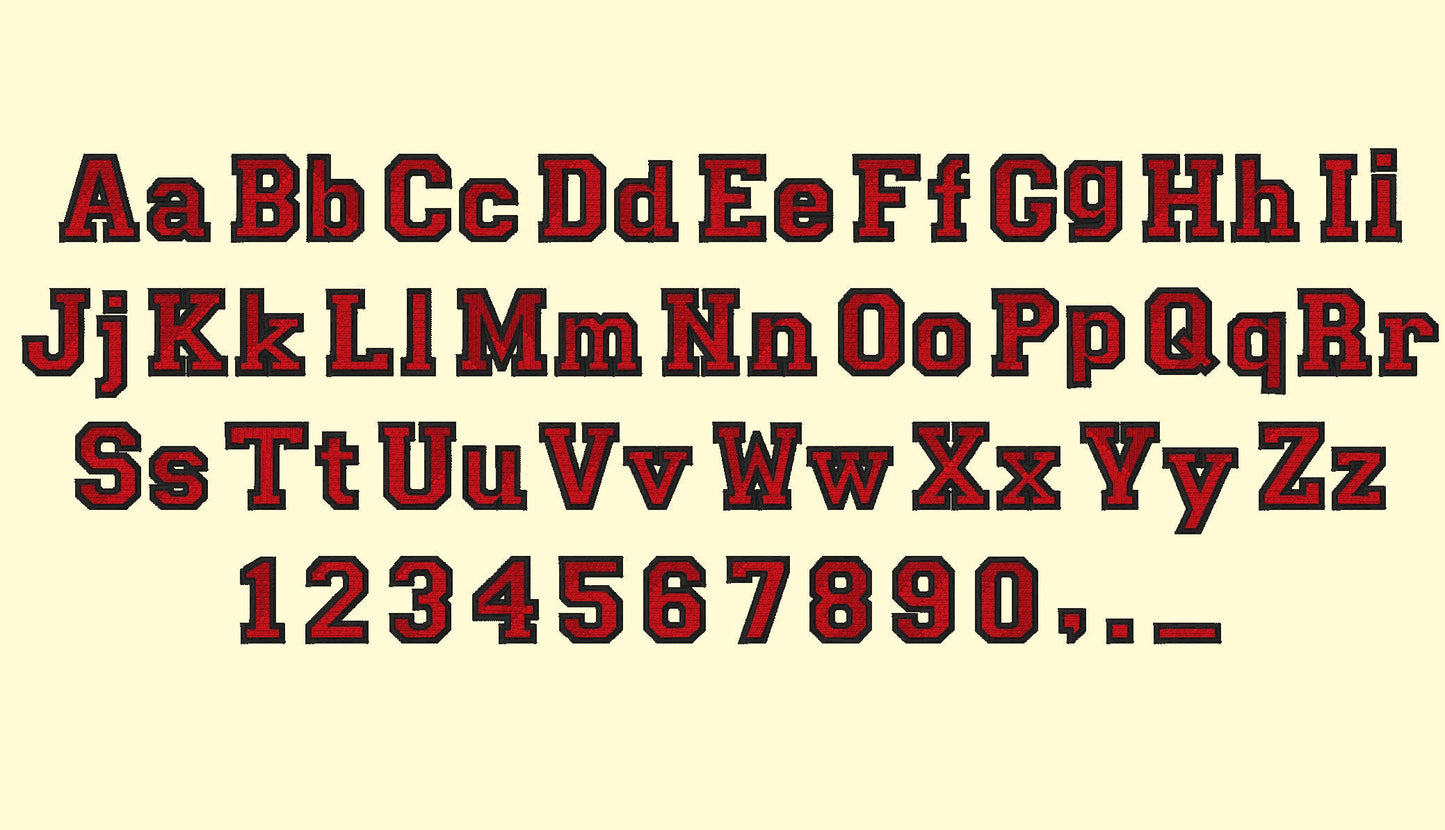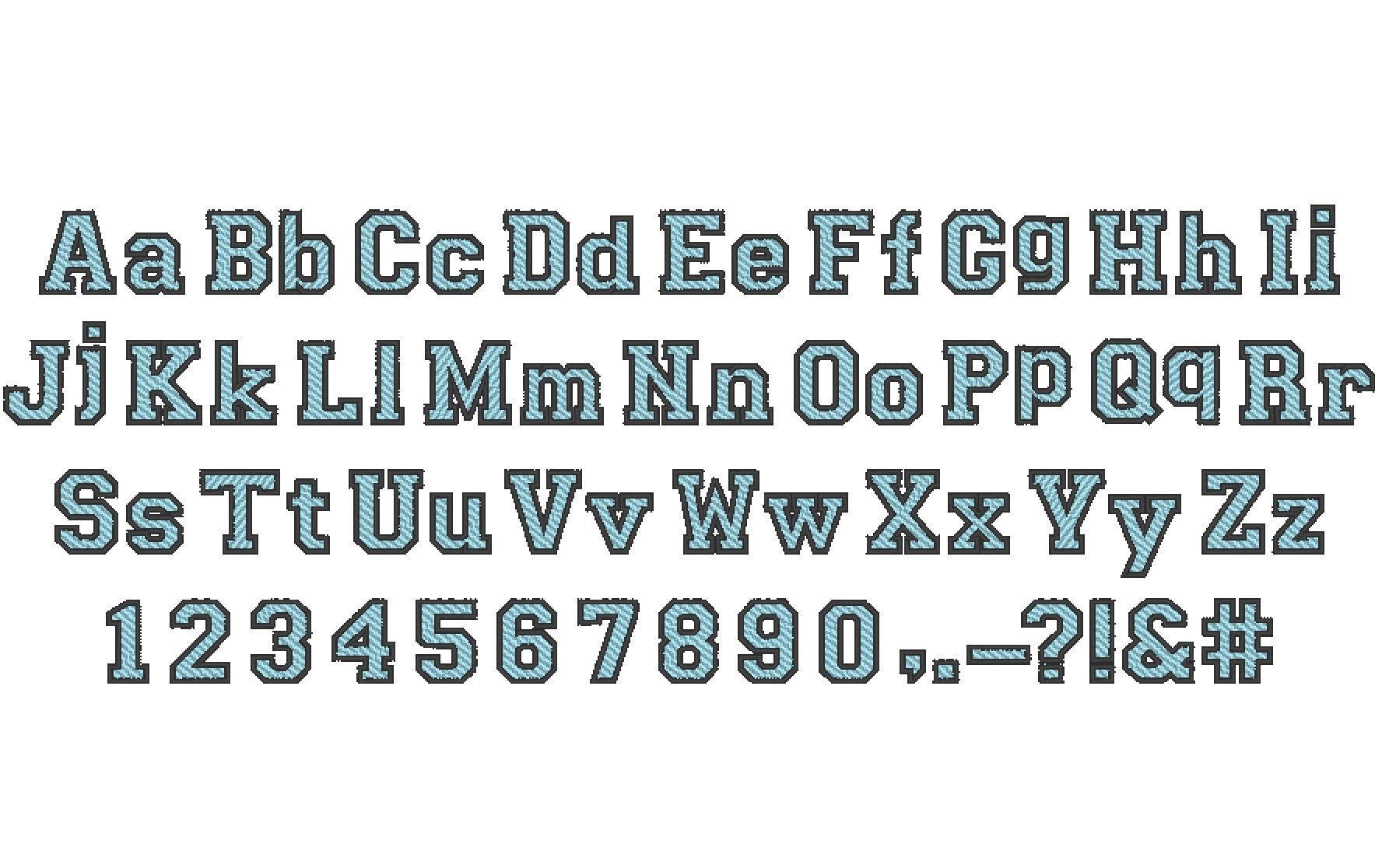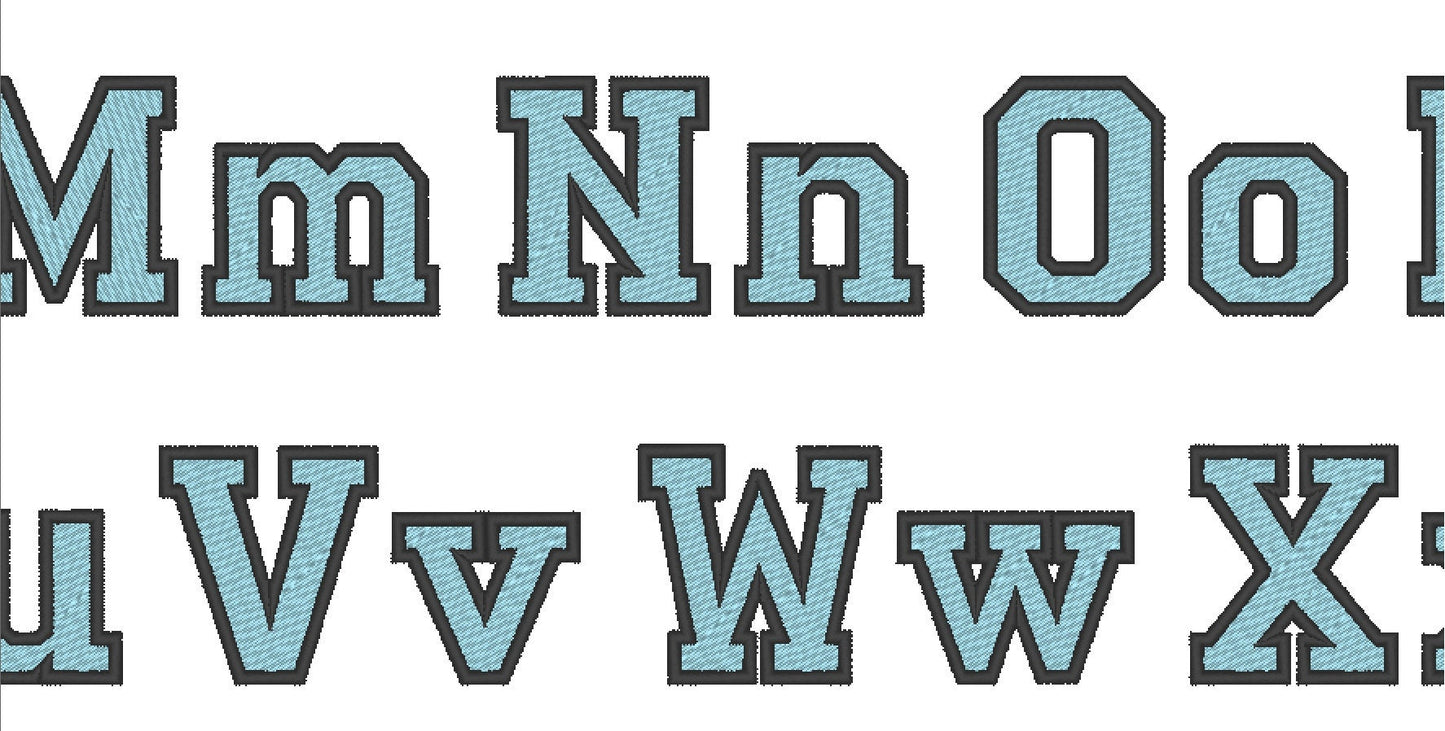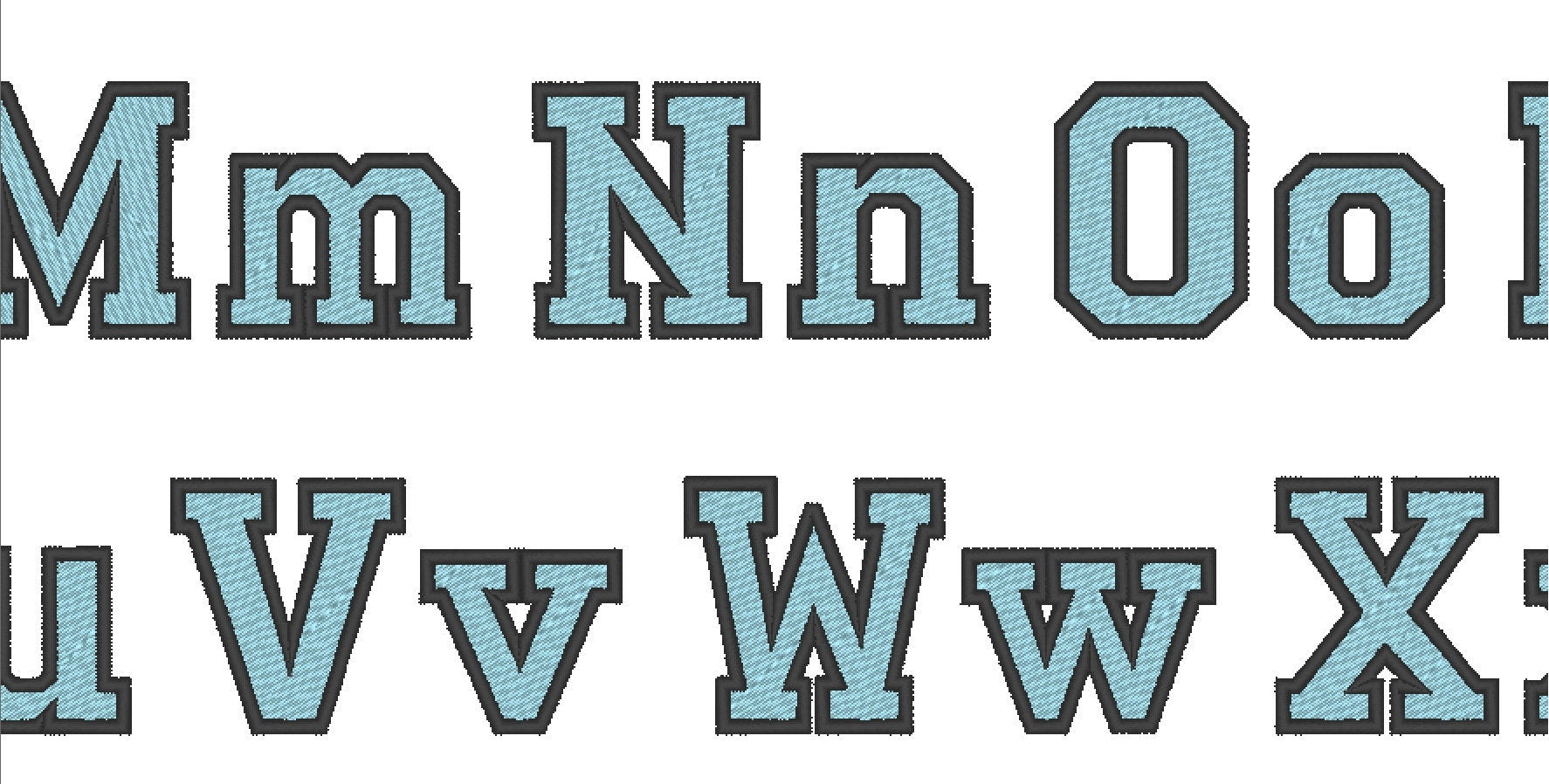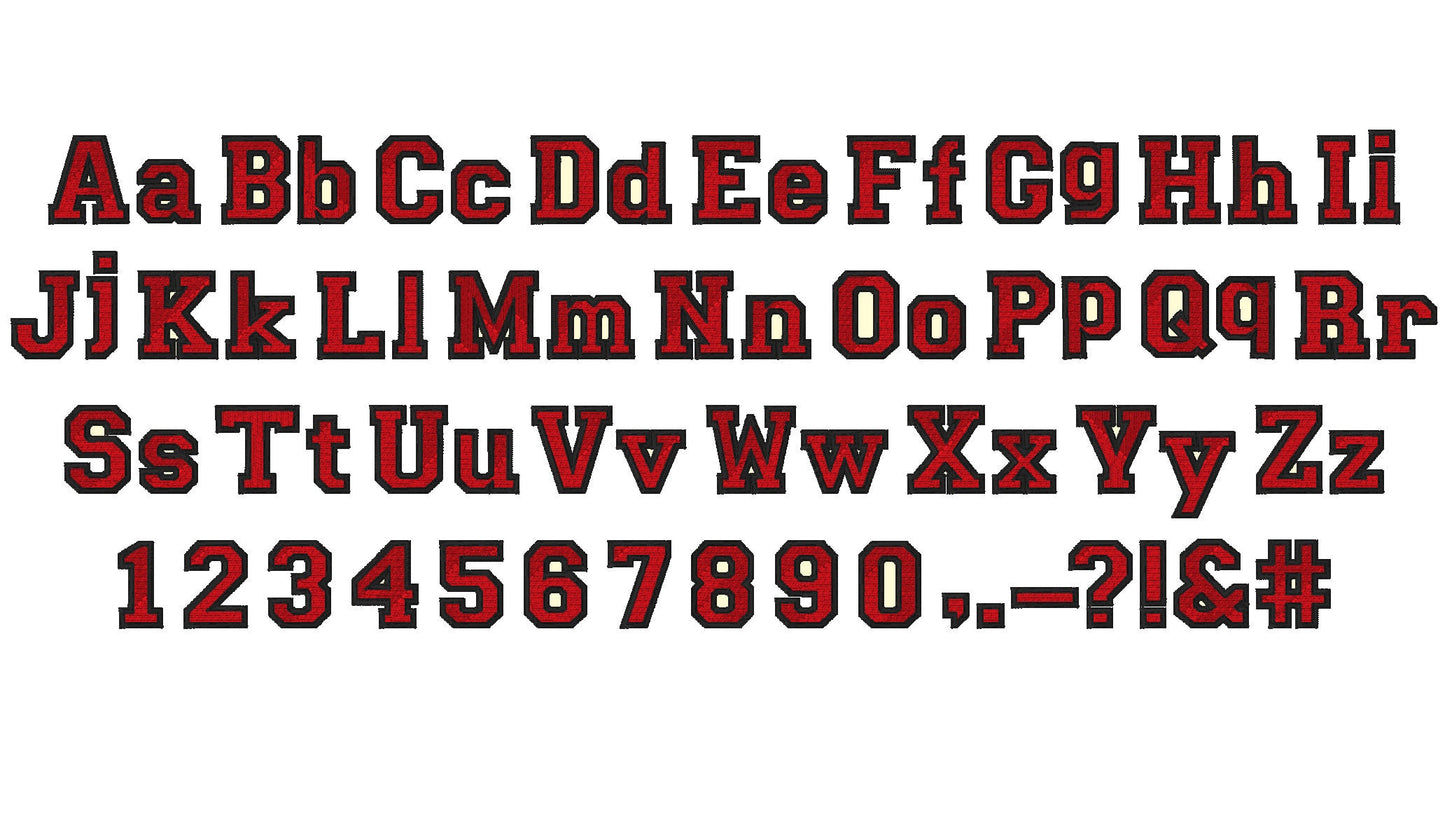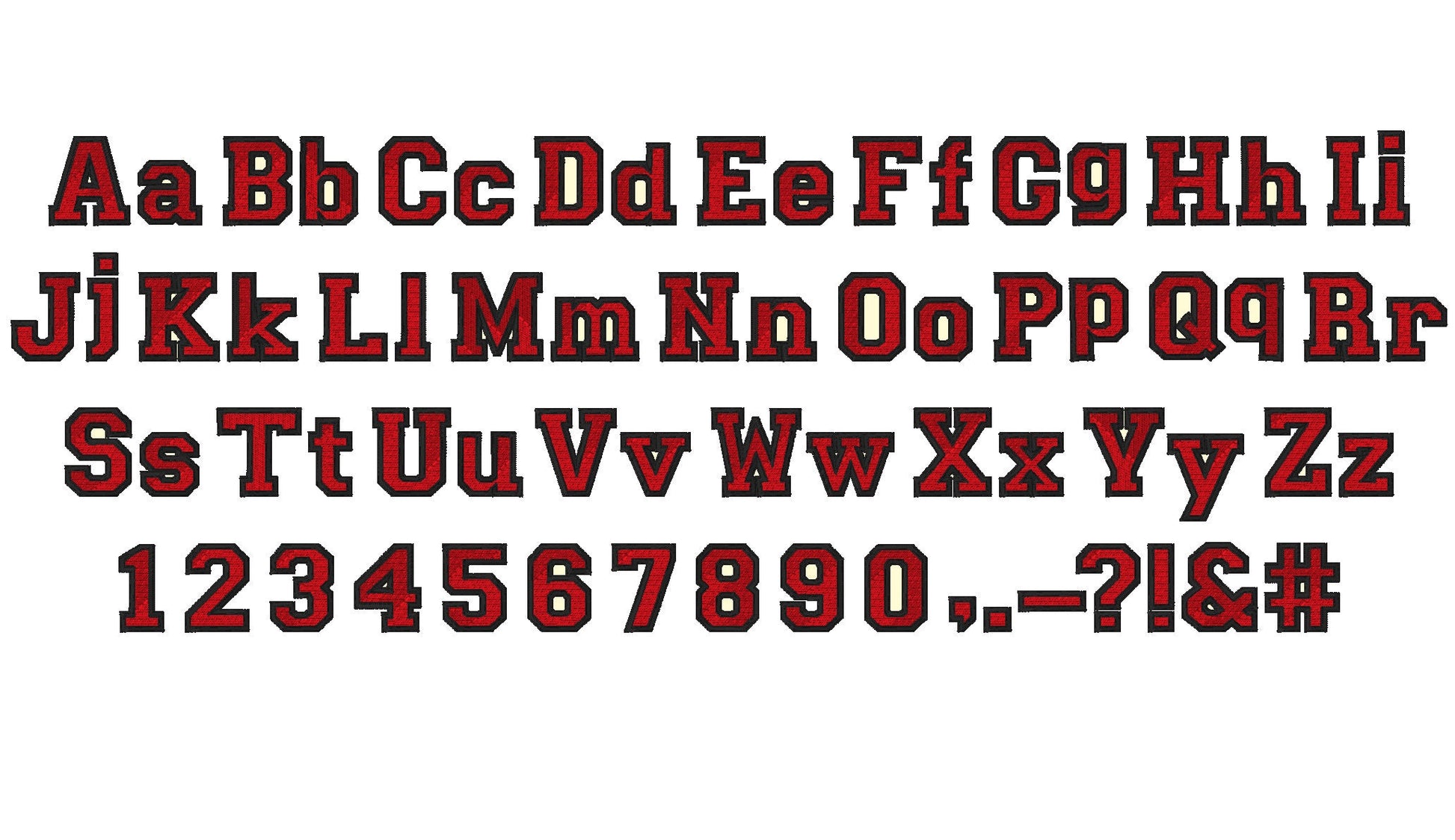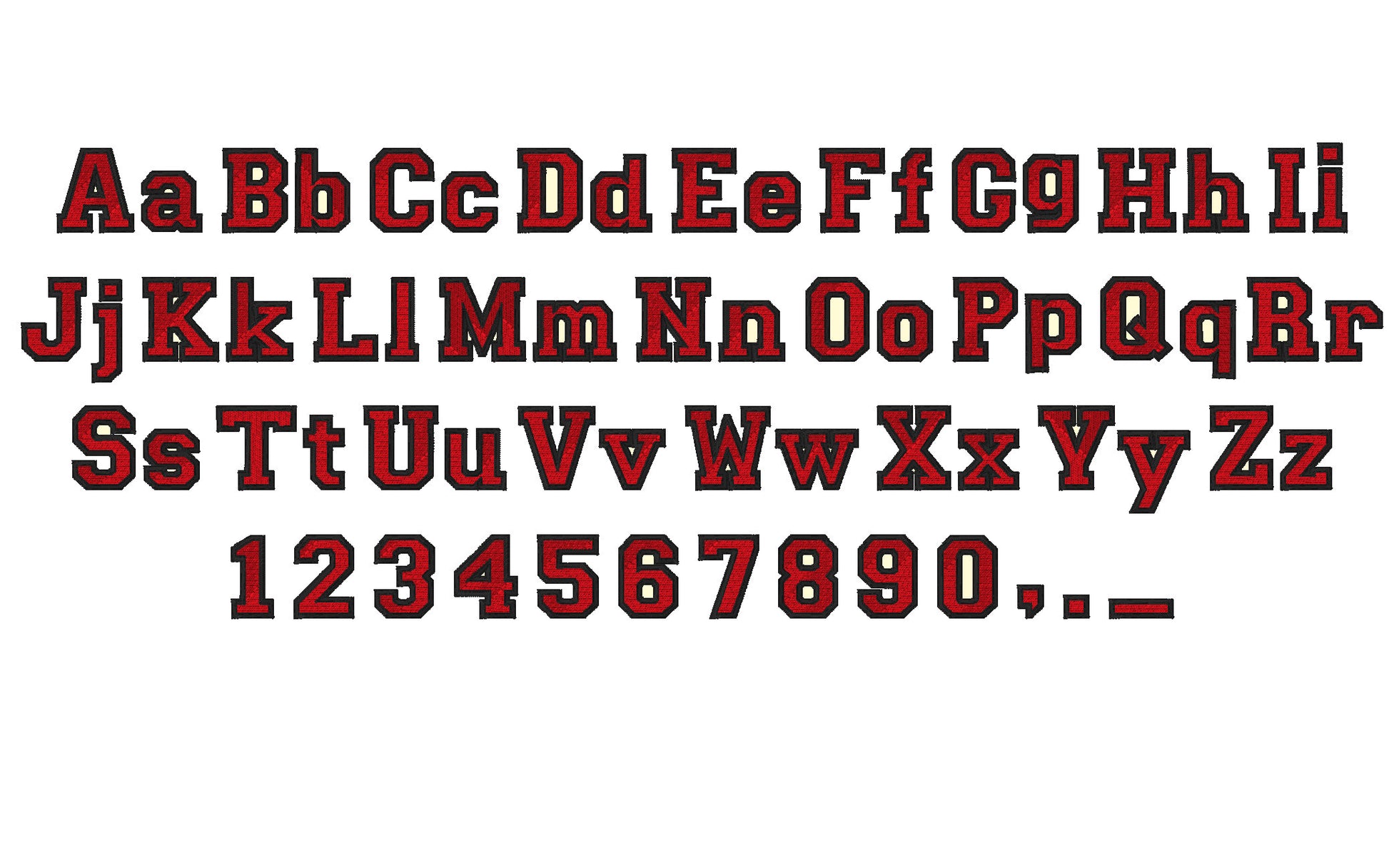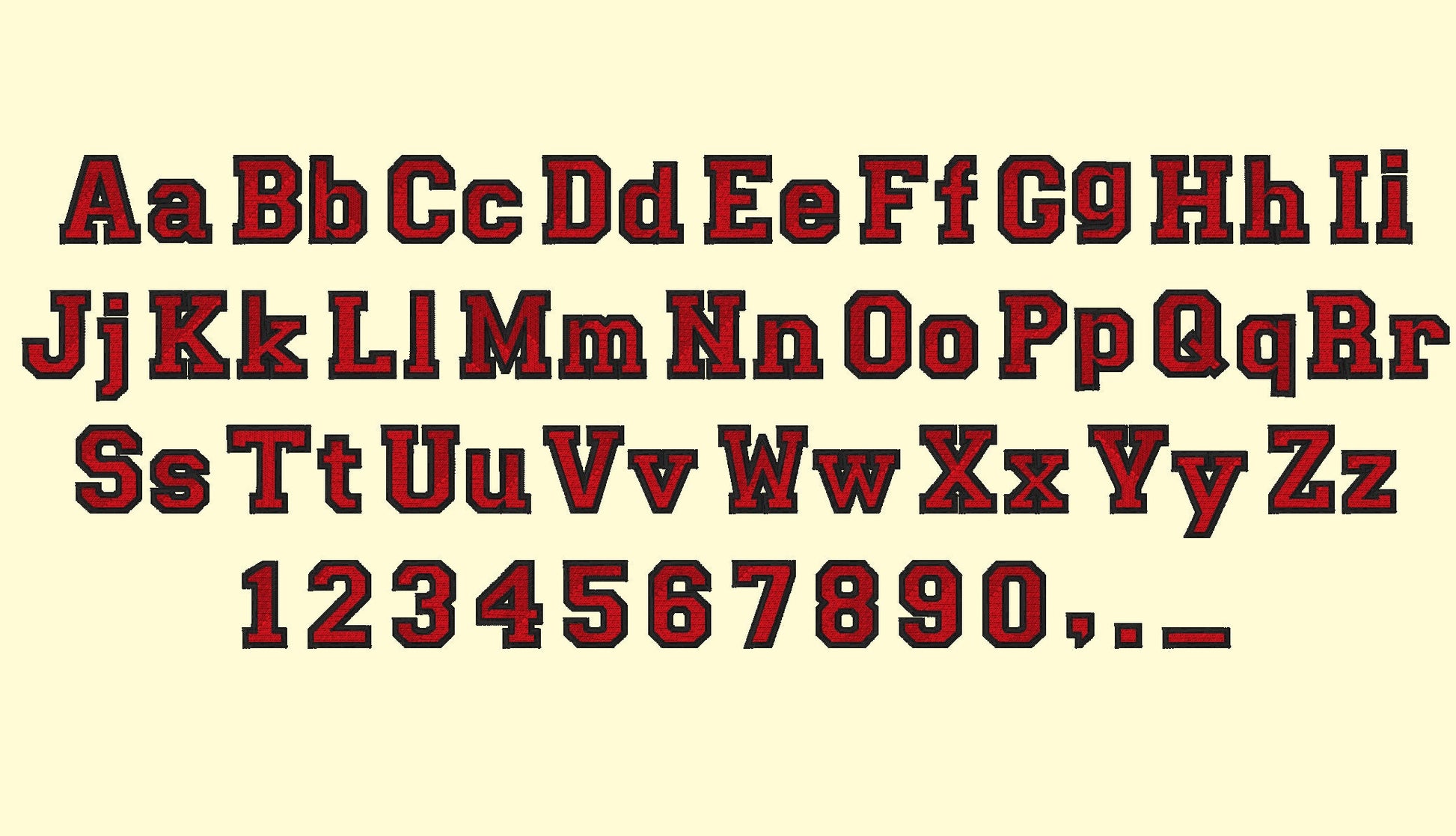
Varsity Collegiate Type Font
Or click to open the linkVarsity Collegiate, Collegiate type Font machine embroidery designs - capital letters, letters and numbers, fill stitch
Entire alphabet, uppercaseand lowercase letters Aa-Zz, numbers 0-9, and punctuation.